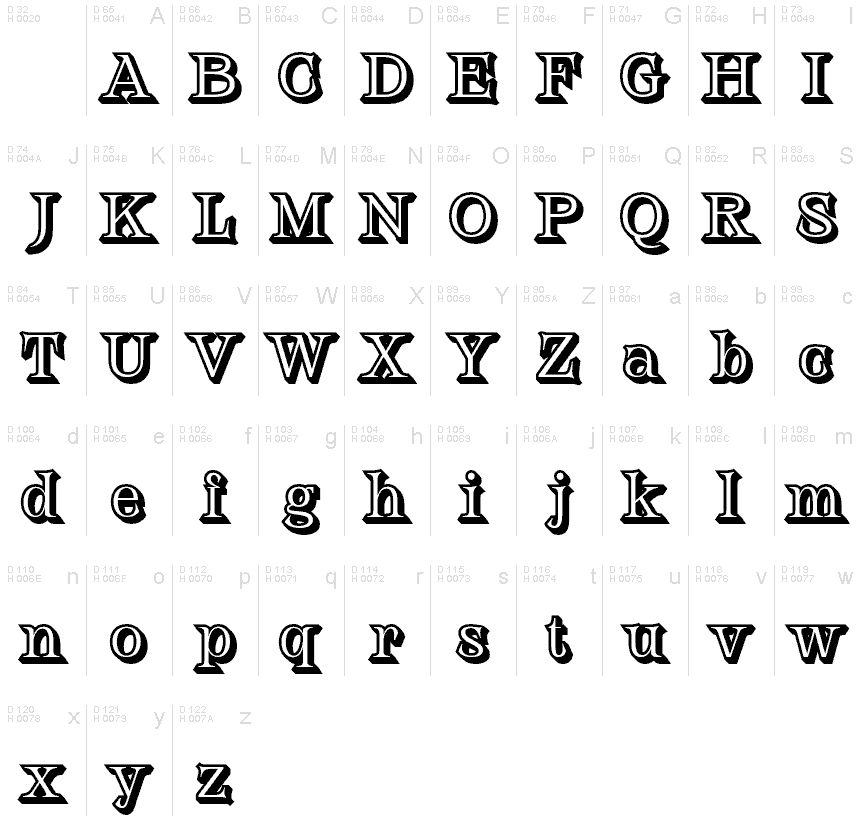
Alfena 3D Demo rudeRight
Alfena 3D rudeRight font is a free 3D serif font from Craft Supply Co that beautifully combines gothic influences with classical aesthetics. It features intricate details and a historical essence alongside its serif presence, making it yet another ornamental creation that borrows inspiration from the style of its past.
Such a display typeface can be used for posters, titles, banners, cards, books, magazines designs and covers. Websites for artists and museums can also benefit from Alfena’s elegant presence as well as typography arts with more decorative focus.